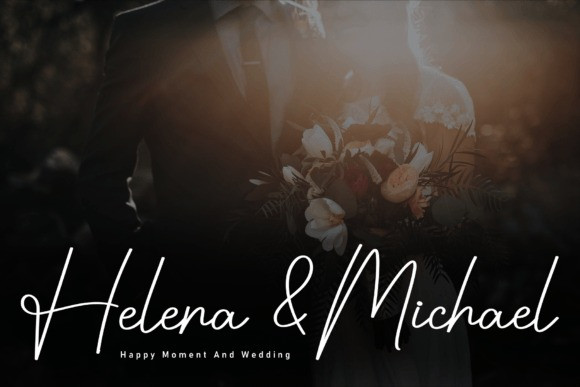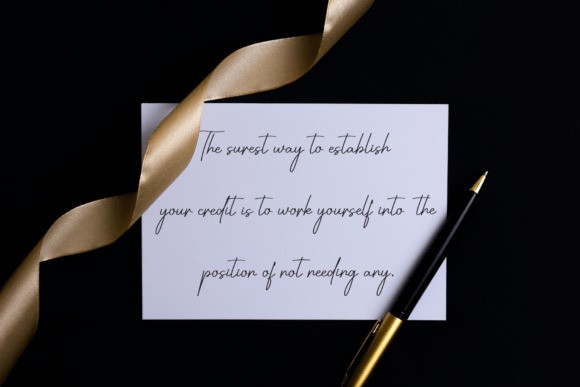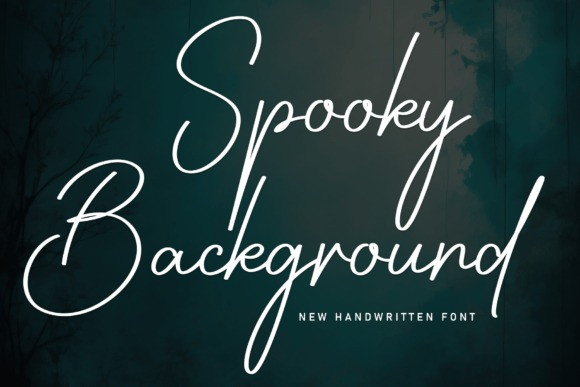
Spooky Background Script Font
Spooky Background Script Font is a lovely and timeless handwritten font. It is the best choice for creating eye catching logos, branding and quotes. Every letter has a unique and beautiful touch, which will make your design come alive!